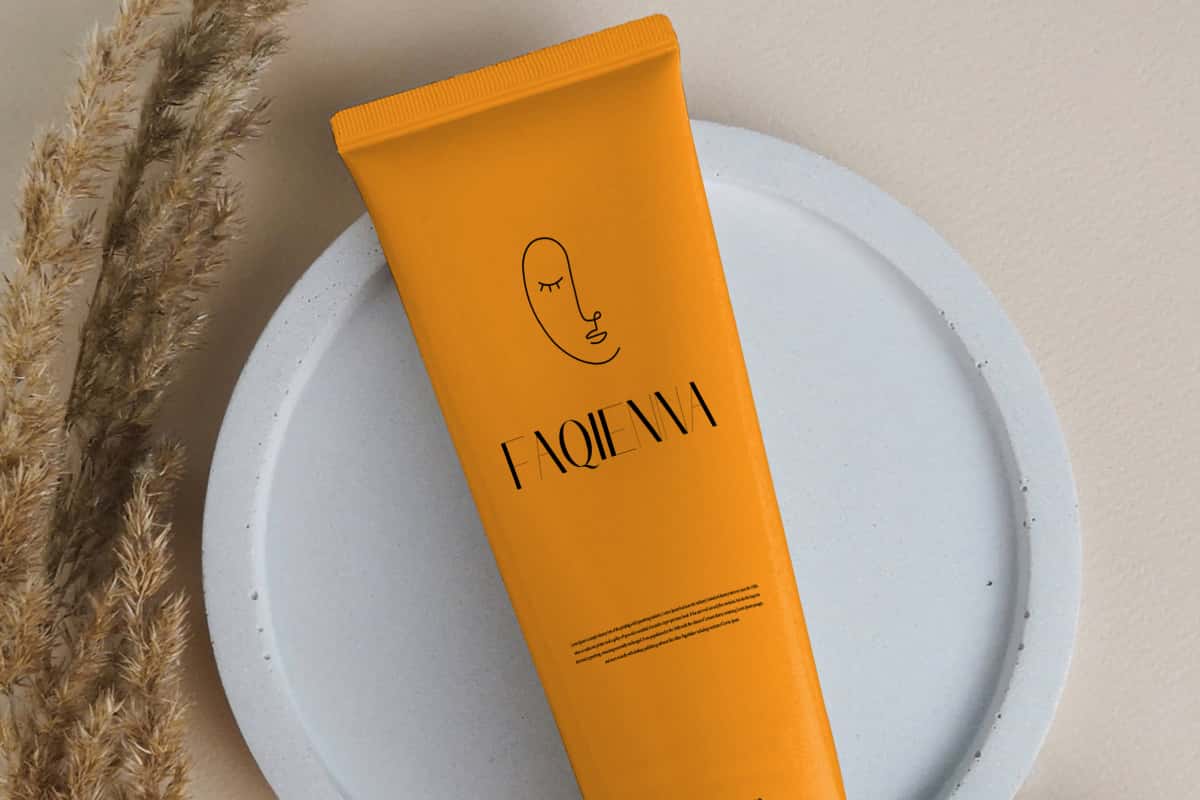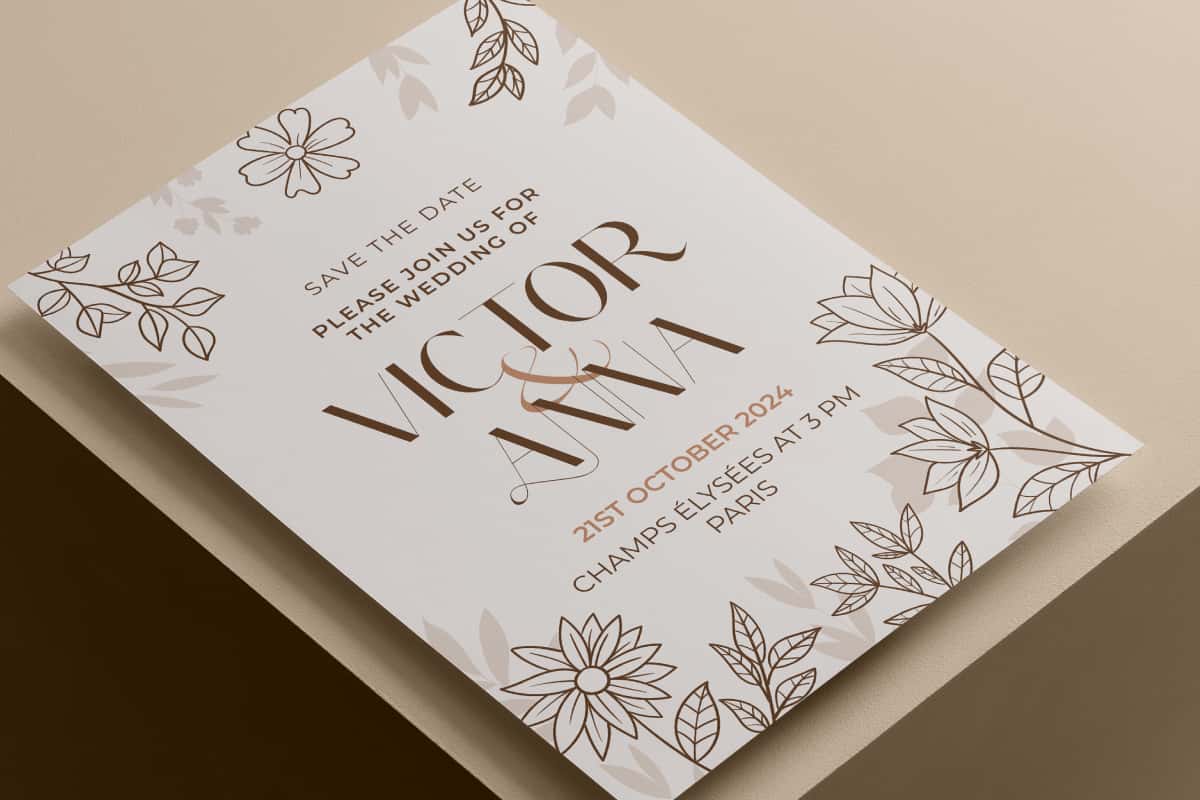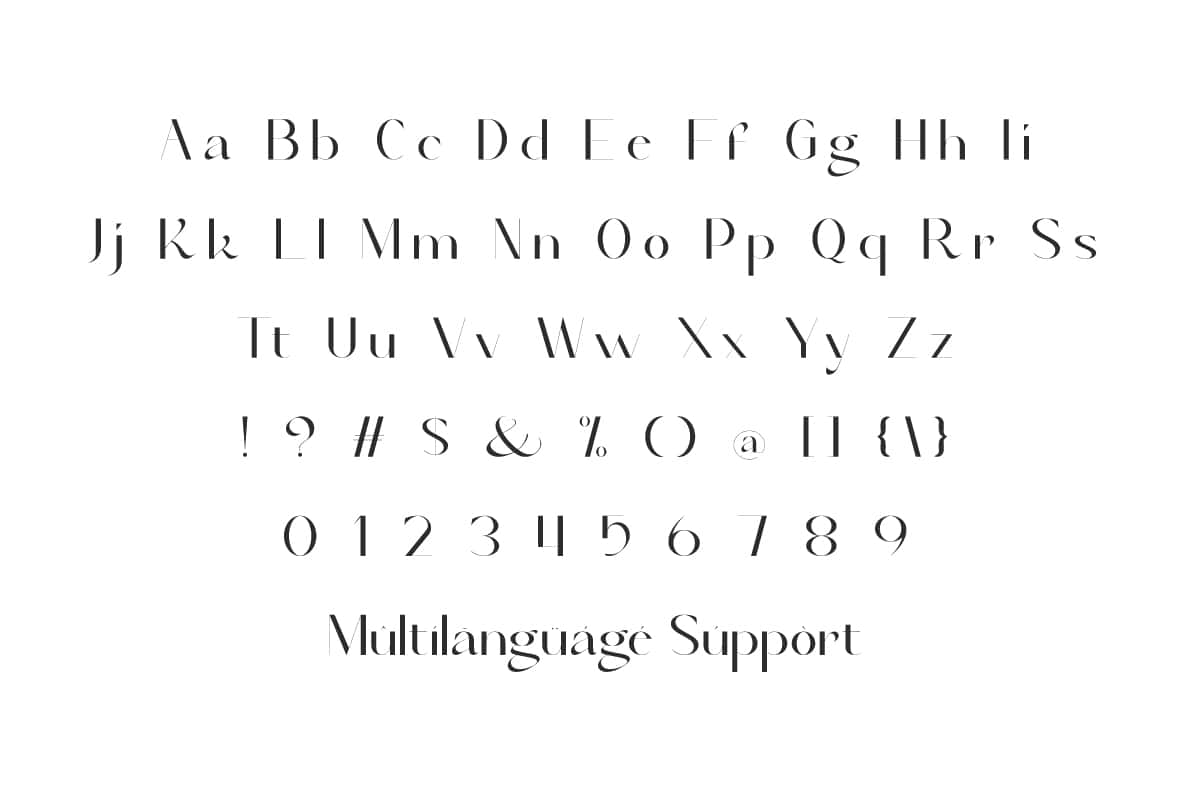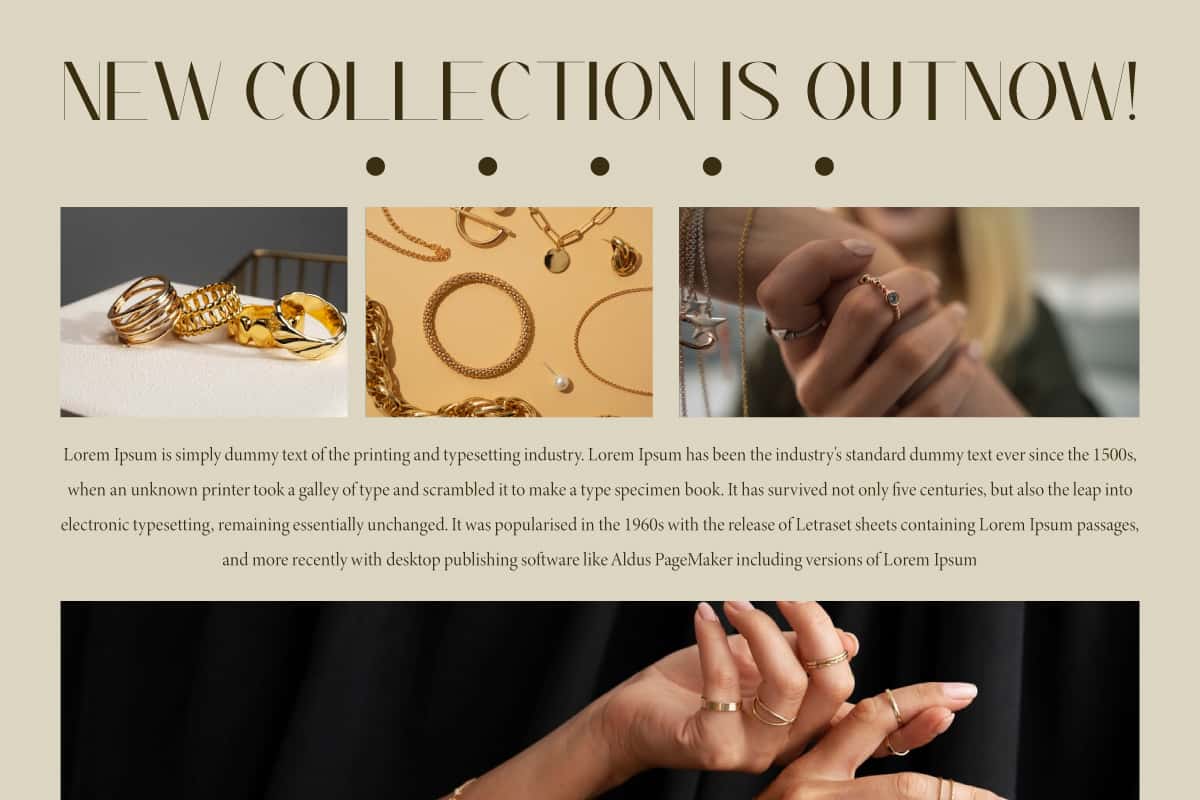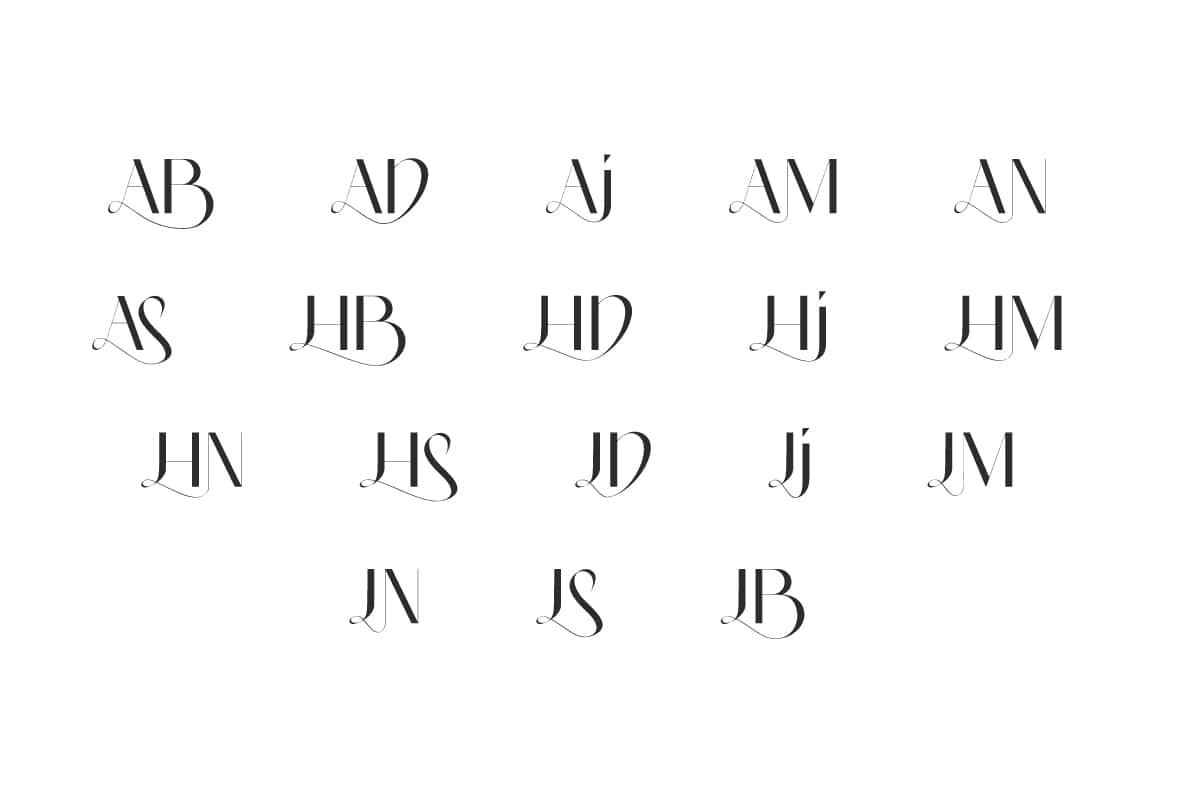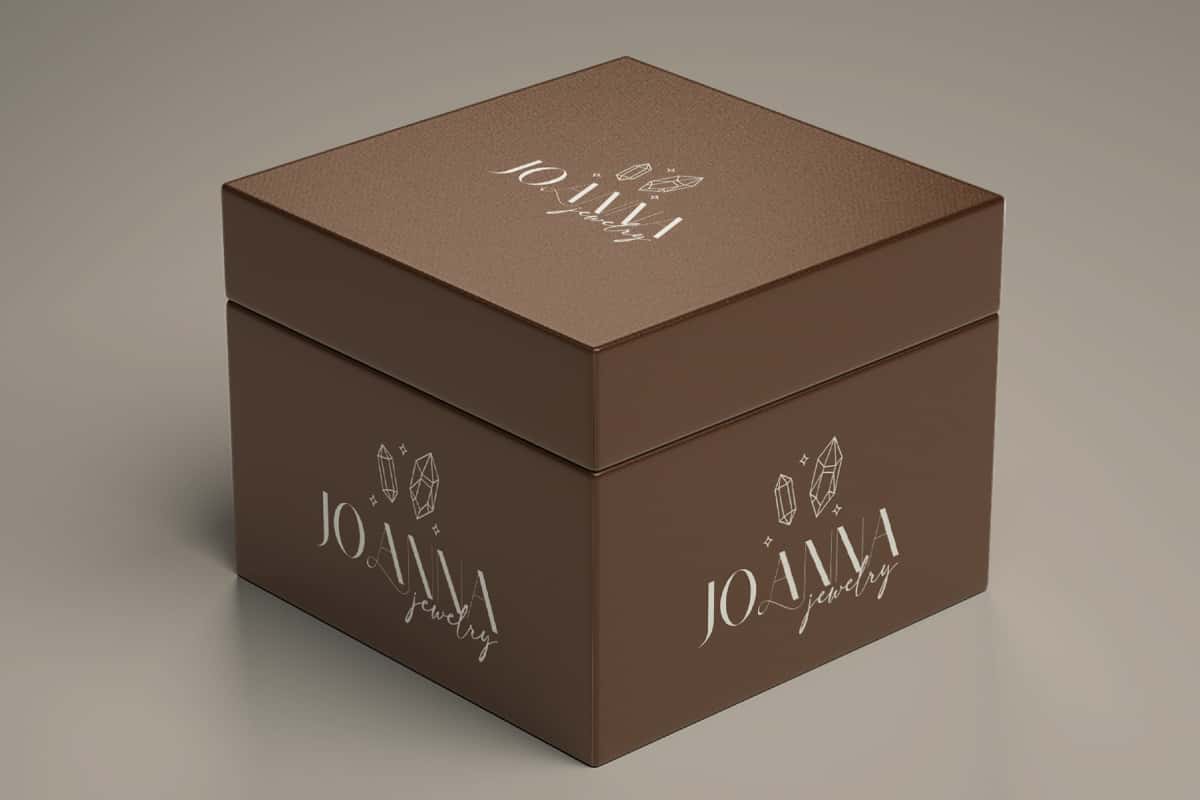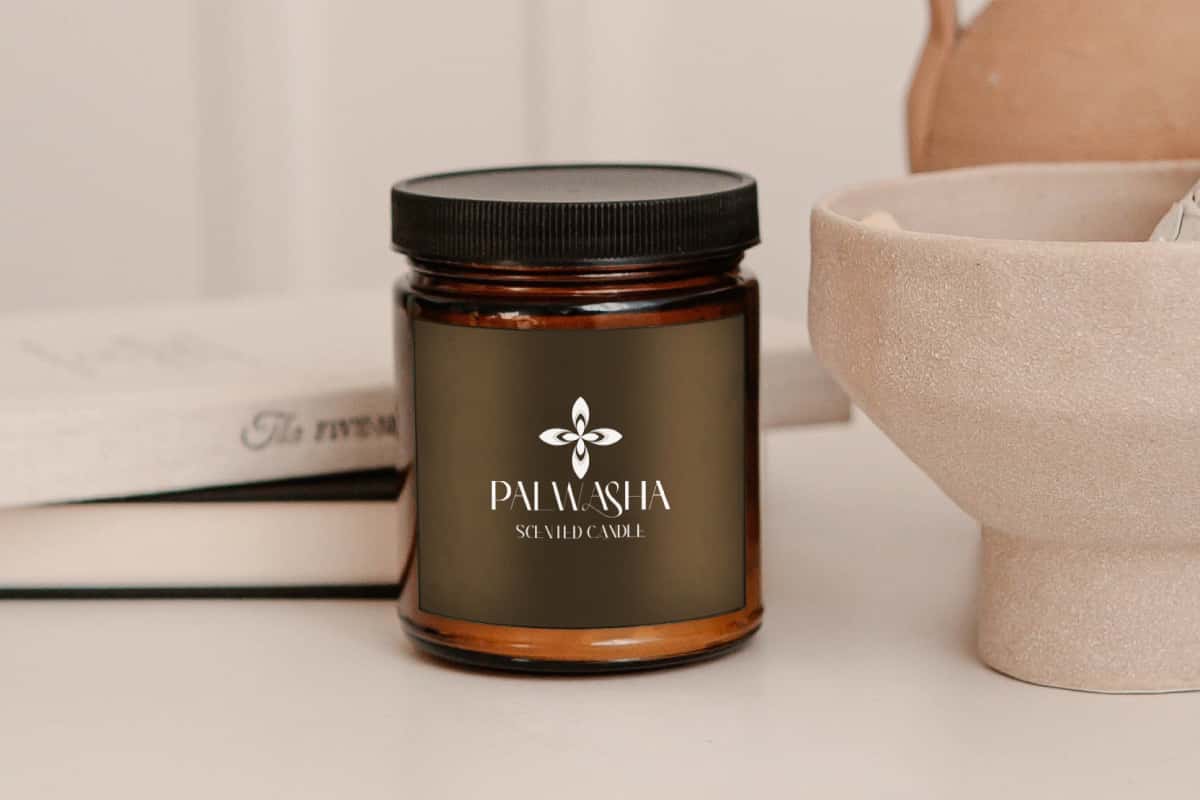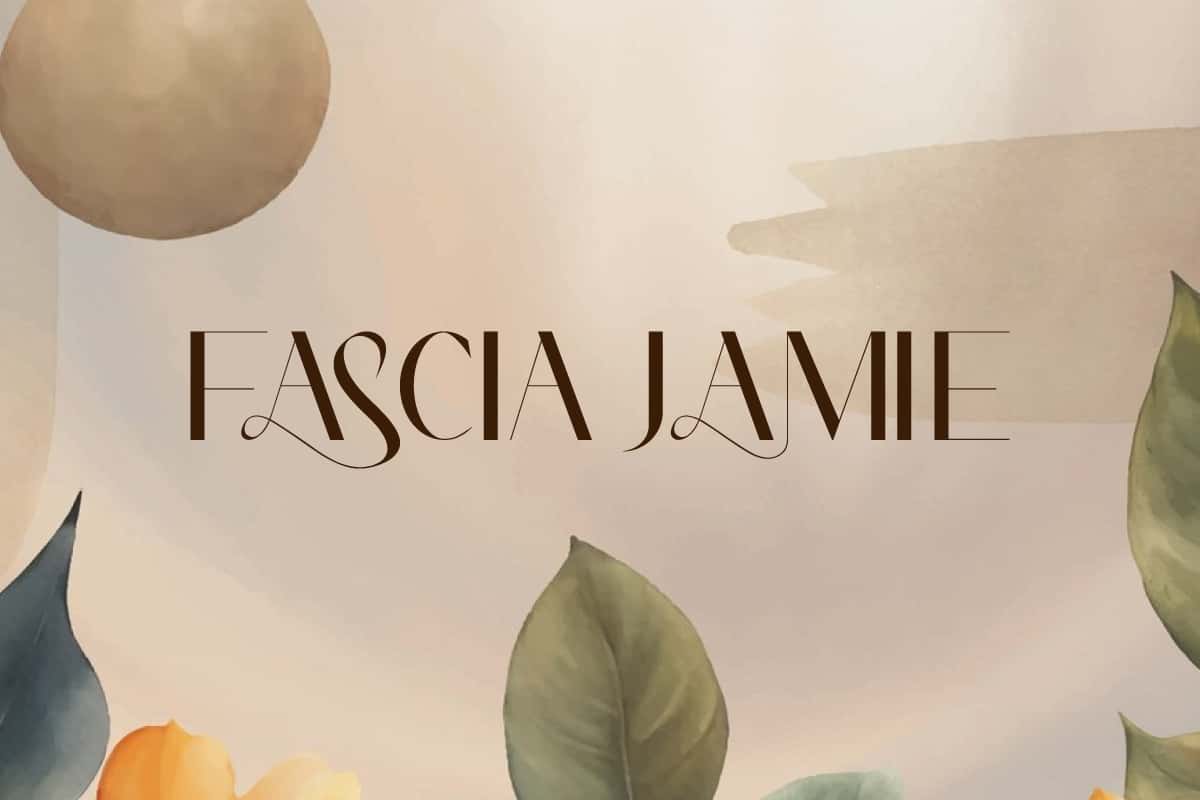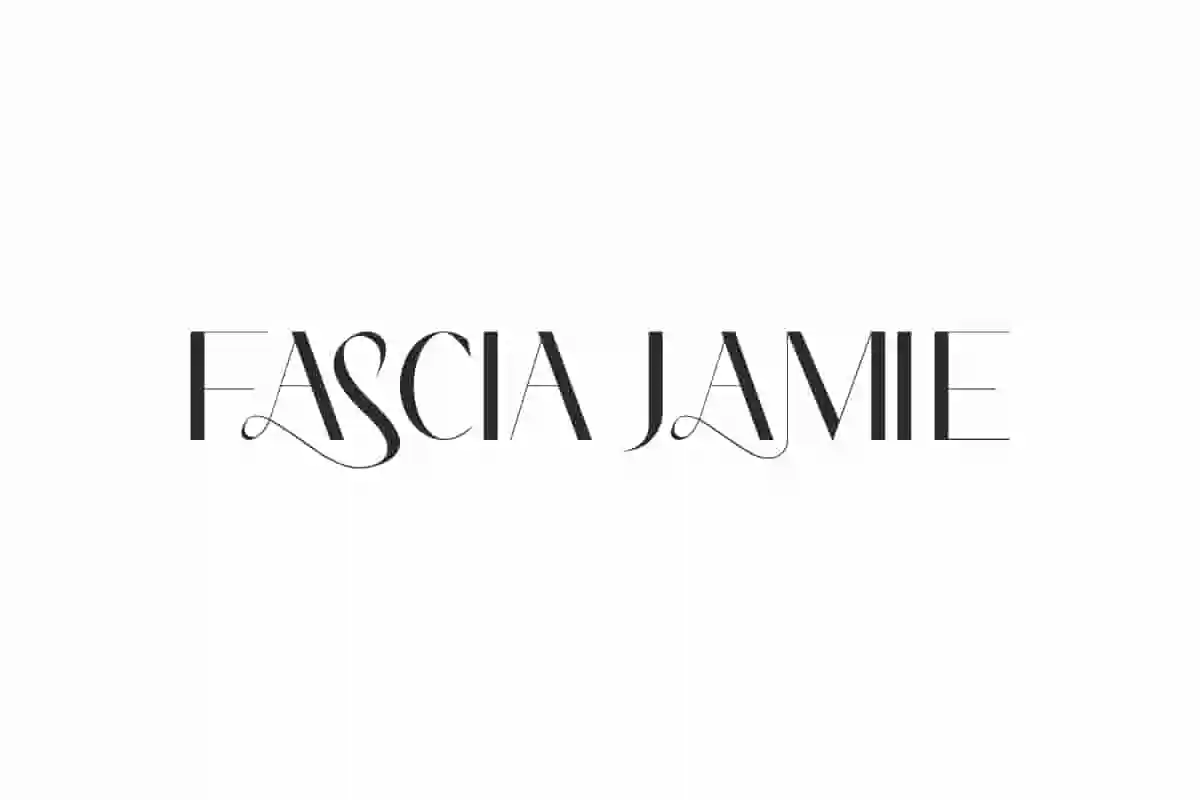
Fascia Jamie Font is a stylish typeface that captures the beauty of empire, combining elegance with modern precision, creating a harmonious blend.
Fascia Jamie Font is a sans serif display font with a stylish modern with a full of elegance. It ensures your designs not only look, but also feel high-end. Perfect for banners, blogs, brand logo, brochure, flyer, headers, invitation, mockup, packaging, product label, stationery, template, titles, websites, and more.
Fascia Jamie Font includes full set of Uppercase and Lowercase Basic Characters, Numbers, Punctuation, Symbols and Ligature. Its flowing curves and subtle sans serif evoke a sense of timeless luxury, making it the perfect choice for accessories and jewelry, beauty spas, cosmetic, fashion, hair salon, home furniture, makeup artist, skin care, wedding, and many more.